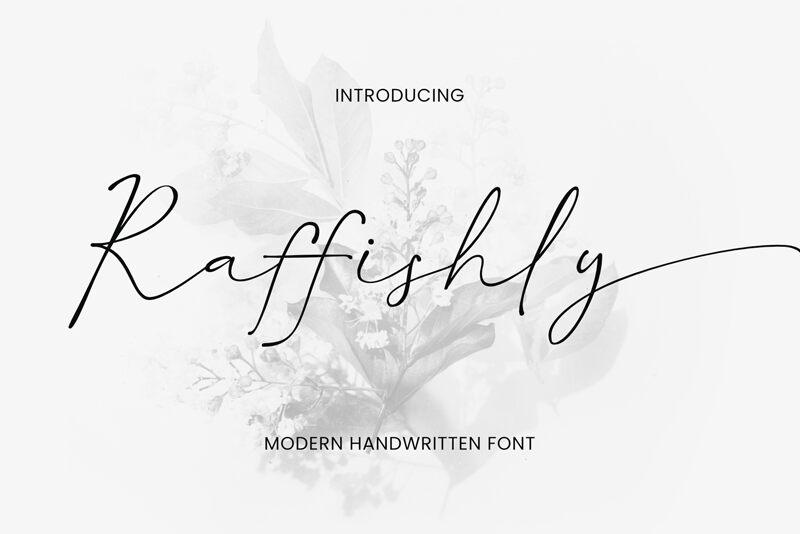
Raffishly Regular
Niskala Huruf’s signature typeface, Raffishly font is raffish and captivating. It has a touch of sophistication in it because of the light strokes that are flowing. This handwritten-inspired typeface captures an organic charm hence people cannot get enough of it. The slightly uneven lines give the impression of something a person had made themselves; encouraging the viewer to believe that they were looking at something genuine and not printed.
Raffishly can be used for many different kinds of designs such as wedding invitations, stationary, branding and editorial layouts. With its distinctiveness this character gives any design a unique look unlike any other handcrafted aesthetic.